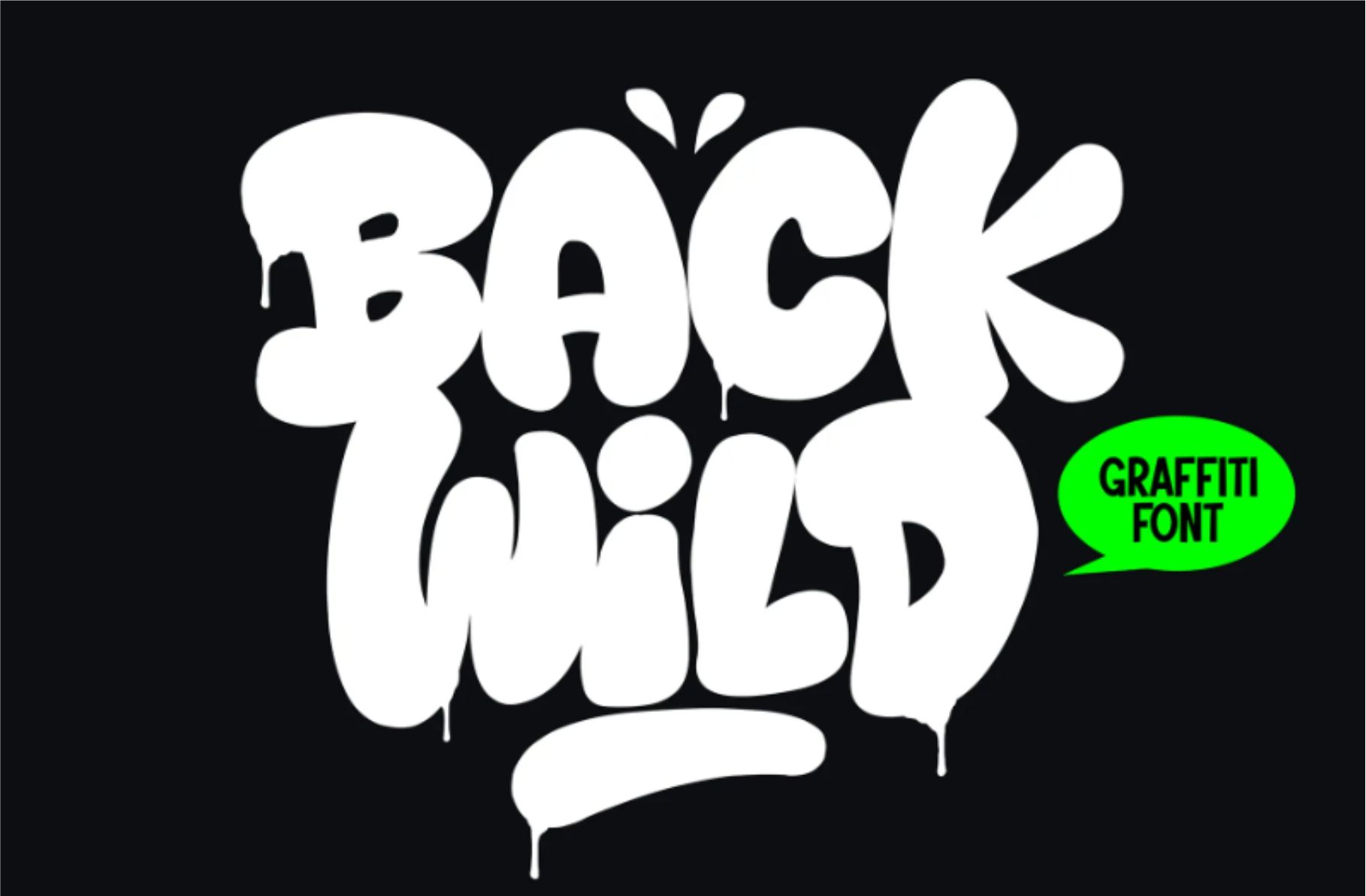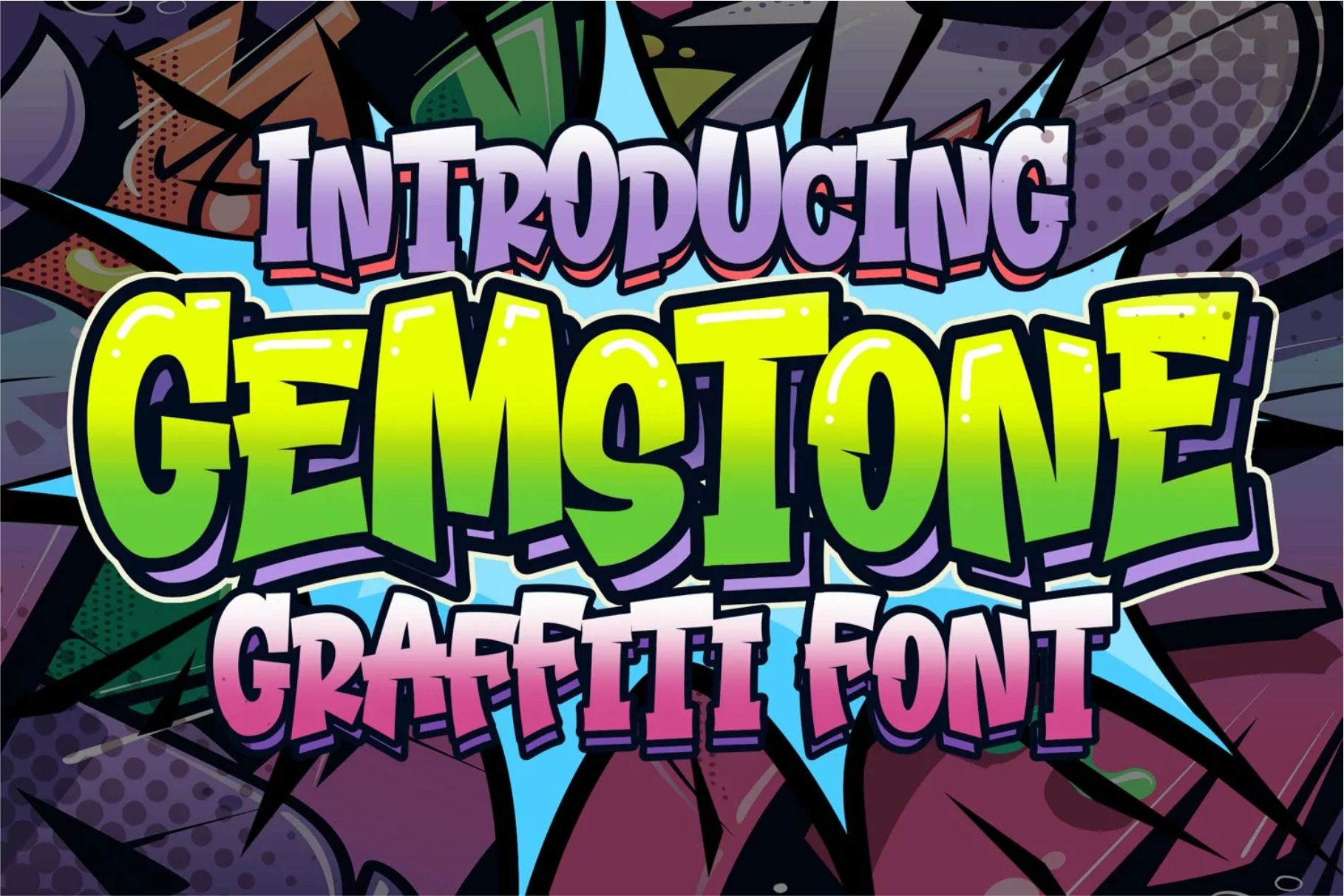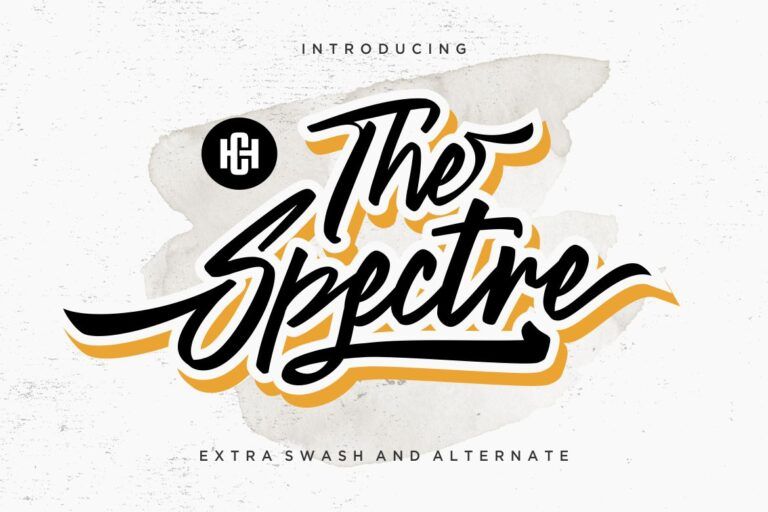
Best Font for Graffiti and Design Tips
Do you know? Graffiti is more than spray paint on a wall. It’s art, it’s a symbol of rebellion, it’s style. And when it comes to graphic design, graffiti-inspired typefaces are some of the most expressive and impactful fonts you can use.
When you’re working on a t-shirt design, music poster, or edgy brand identity, choosing the right font for graffiti can take your visual project from just okay to wow.
Now, maybe you’ve tried browsing font libraries before and got overwhelmed. So many options, but which ones actually work? Which ones are readable, cool, and not overused? Don’t worry, this guide will help!
What is a Graffiti Font?
A font for graffiti is a typeface that mimics the handwritten, sprayed, or painted styles seen in street art. These fonts often feature bold strokes, exaggerated shapes, and rough edges. Some feel like marker tags, while others look like they were painted with fat brushes or spray cans.
Moreover, graffiti fonts can range from bubble letters to complex wildstyles. What connects them all is their visual energy, which is commonly bold.
Yes, they’re not always the most readable at first glance, and that’s okay. It’s because graffiti fonts are about personality, attitude, and standing out. That’s why they’re perfect for creative projects that want to break rules a little (or a lot).
Why a Font for Graffiti is Popular for Design?
So, what makes graffiti-style fonts so popular among designers today? The answer lies in their raw energy, cultural relevance, and incredible versatility. Here’s why:
- Perfect for Bold Expression
The rise of hip-hop culture and street art has made graffiti fonts part of pop culture. From murals to sneakers, graffiti influences everything. So naturally, designers borrow that edge for logos, posters, album covers, and more.
Graffiti fonts also help with visual hierarchy. Since it’s very strong, they demand attention, making them great for headlines or product names.
- Flexibility Across Media
Also, graffiti fonts work in both print and digital. You can use them on flyers, banners, packaging, clothing tags, or even video thumbnails.
If you scroll through social media or the internet, you’ll find them across niches, such as skate culture, indie music, underground brands, or youth-oriented merch. Even big brands sometimes use a graffiti-style font when they want to appear bold or edgy.
Graffiti Font Design Tips
Just like spraying the traditional graffiti paint on a wall, designing with graffiti fonts also works best when applied with skill and intention. Here’s a guide packed with practical tips to help you make the most of it, without overwhelming your design or losing clarity:
1. How to Select the Right One
Not all graffiti fonts are created equal. Some are wild and chaotic, others are playful and rounded. So, try asking yourself:
⦁ What’s the tone of your project?
⦁ Do you need something raw and rebellious? Or bold but friendly?
⦁ Does it need to be readable at small sizes?
Also, keep in mind that some fonts are more abstract than others. For professional branding or client work, try a font for graffiti that has a good mix of style and legibility.
2. How to Combine with Other Typography
Graffiti fonts usually have big energy. So when pairing them with other typefaces, balance is key. This mix creates contrast, making your layout more interesting and easier to read.
Some useful tips, use a clean sans serif or neutral serif for body text. Also, let the graffiti font be the hero, it should handle the headline or main visual. And avoid pairing two bold display fonts unless you’re going for a layered collage look.
3. How to Balance with Other Design Elements
A bold graffiti font actually doesn’t need much help, but it does need space to breathe. So, try using simple backgrounds so the letters pop.
If your font has texture, don’t overdo effects like drop shadows or heavy patterns. Also, stick with 2-3 main colors that match the tone of the font.
Oh, and layering can be fun too! You can try putting your graffiti text over brick textures, paint splashes, or photo backgrounds, as long as you keep readability in mind.
4. Common Mistakes to Avoid
Yes, graffiti fonts are high-impact, but they’re not always easy to use. If misapplied, they can feel unprofessional or just plain hard to read. Here’s what to watch out for:
⦁ Overusing the Font
Graffiti fonts are made for emphasis, not paragraphs. Using them for full blocks of text is visually exhausting. Just stick to headlines, logos, or short quotes.
⦁ Ignoring Scale
Again, these fonts are meant to be big and bold. Shrinking them down removes the details that give them character, like splatters, curves, or brush marks.
⦁ Forgetting Brand Fit
Not every brand can pull off a graffiti vibe. Before you commit, ask: Does this align with the tone of the client or product? If not, explore cleaner alternatives or modify the font to fit.
4. Graffiti Inspired
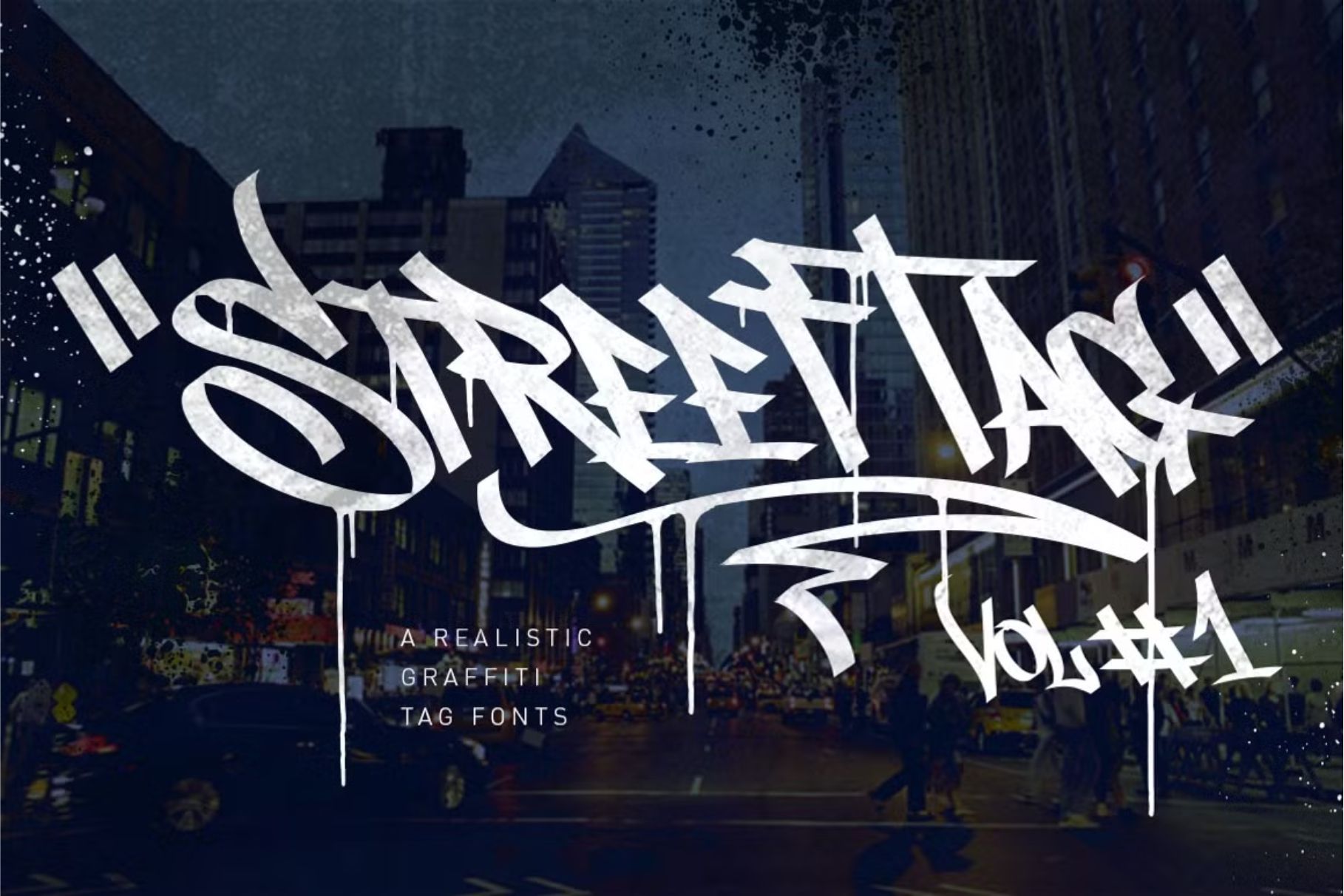
This font for graffiti mixes old-school gothic script with modern grit, which is a powerful combo if your brand leans dark and intense. It will be best for posters, or urban apparel branding.
5. Buchery
One look, and you can see that Buchery is all chaos and movement, with fast brush strokes and grunge texture. It’s perfect when you want a wild, splattered look that feels straight from the underground.